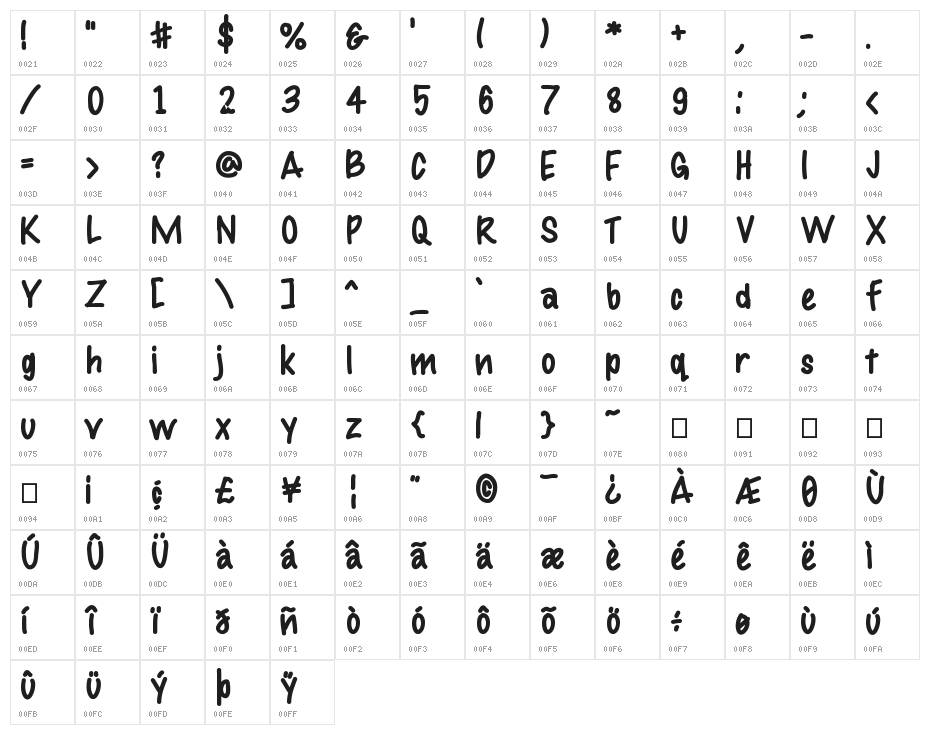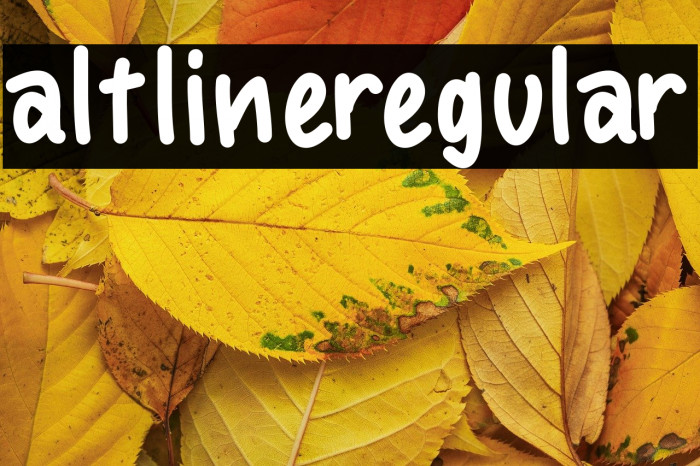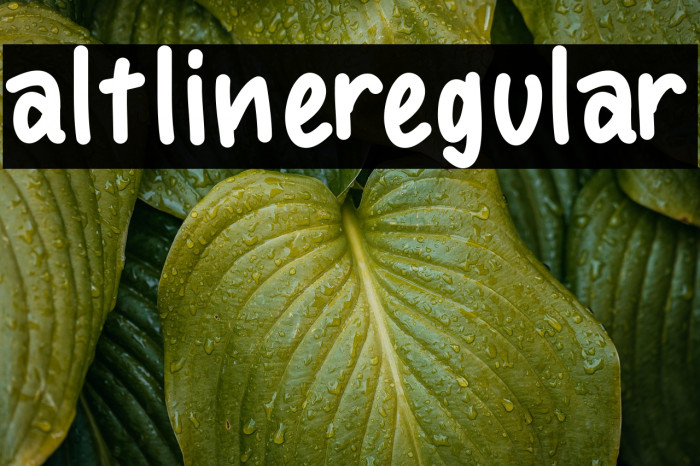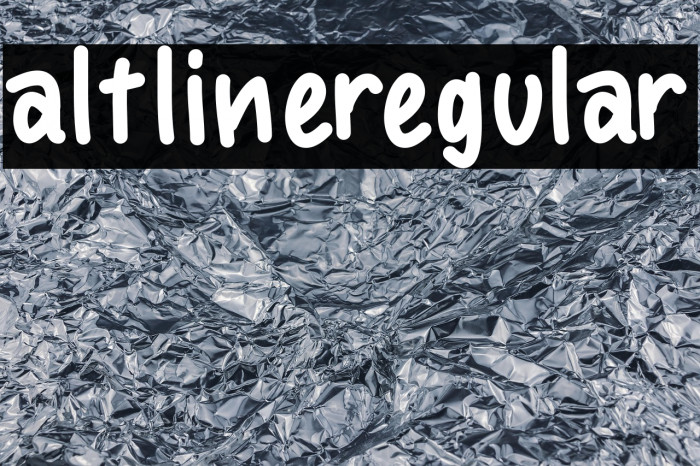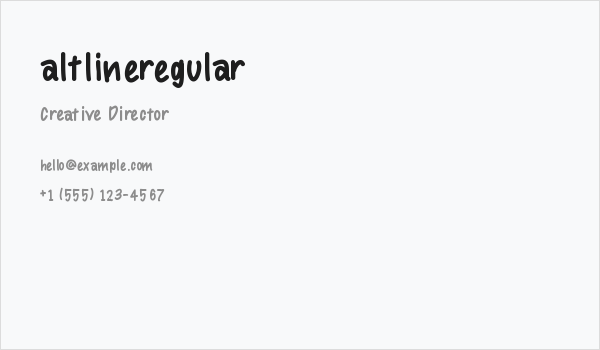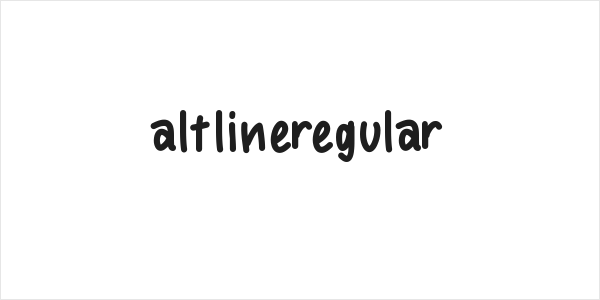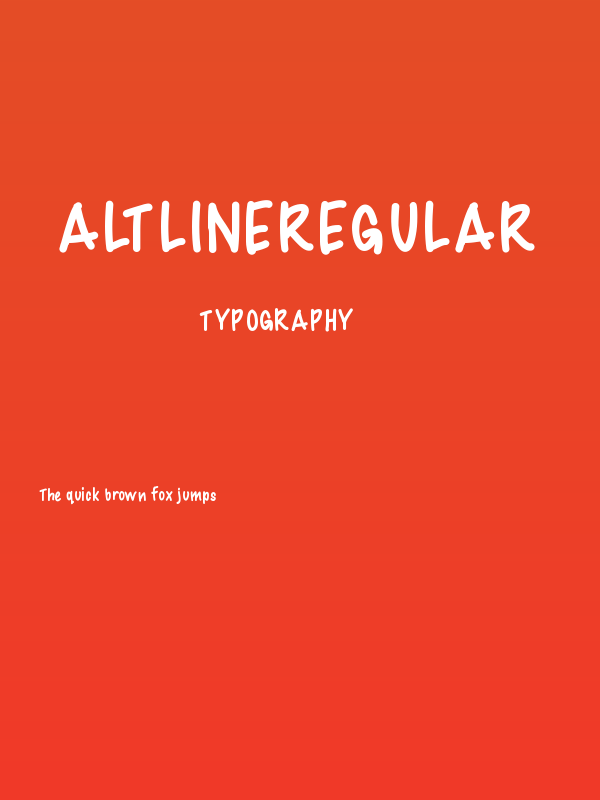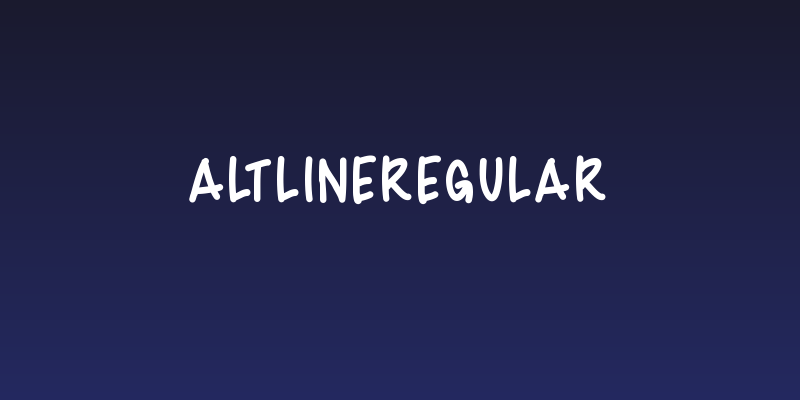
altlineregular Font
altlineregular Description
This font features a playful and casual handwritten style, characterized by its bold and rounded letterforms. The strokes are consistent in thickness, giving it a uniform appearance. The uppercase and lowercase letters maintain a friendly and approachable look, with slightly irregular shapes that add to its charm. The numerals and special characters follow the same style, ensuring cohesion across all elements. This font is ideal for projects that require a personal touch or a fun, informal vibe.
| Overall Style | Casual, Playful |
| Use Case | Headlines, Logos, Informal Text |
| Proposed Projects | Perfect for greeting cards, children's books, playful branding, and social media graphics. |